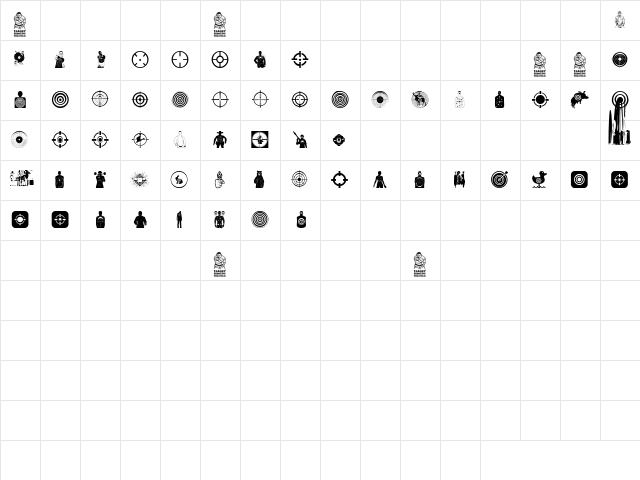
Target Shooting Regular
Design Context for Target Shooting
Target Shooting is a composed and adaptable typeface that performs quietly and consistently across a wide range of design contexts.